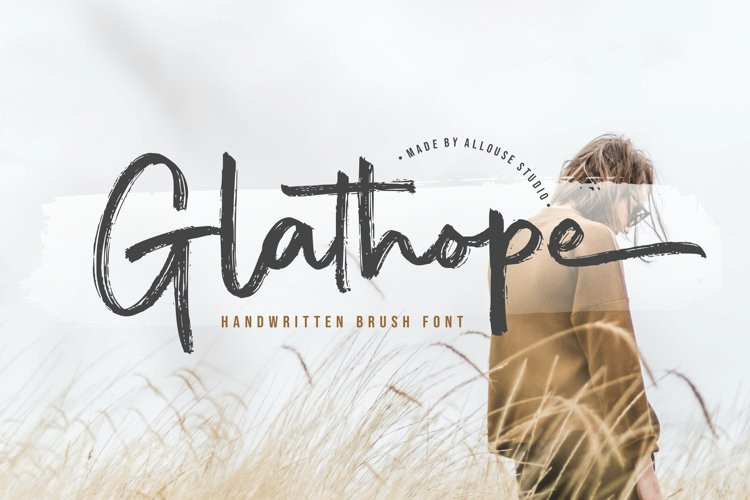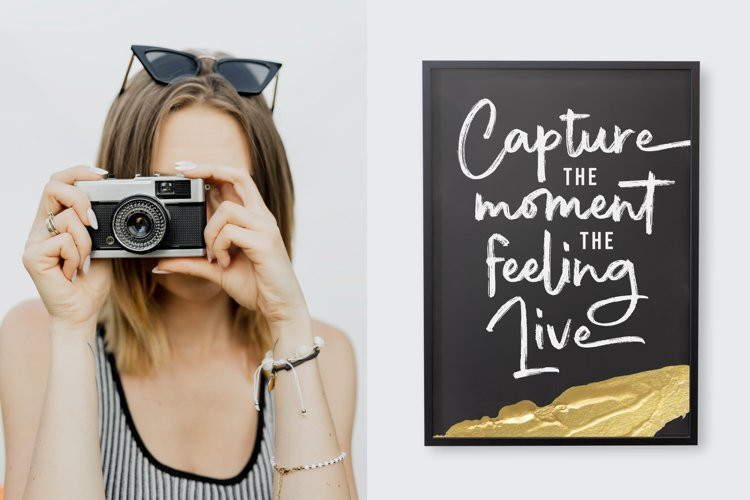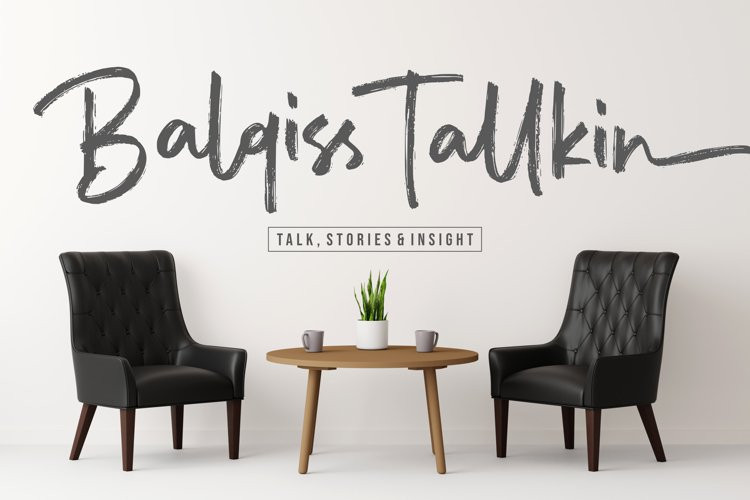
Glathope Font
Glathope FontGlathope is A Handwritten Brush Font
Glathope is perfect for product packaging, branding project, megazine, social media, wedding, or just used to express words above the background.